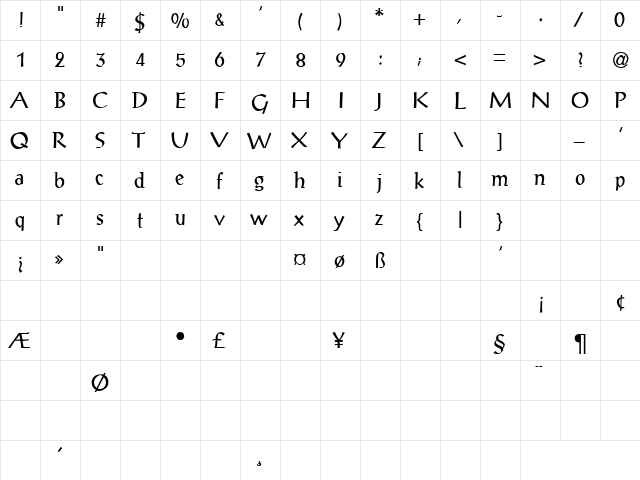
Seeing Things 1 Regular
Design Context for Seeing Things 1 Typeface
Seeing Things 1 is a composed and adaptable typeface that performs quietly and consistently across a wide range of design contexts. The delicate stroke weight brings airiness and refinement to layouts.